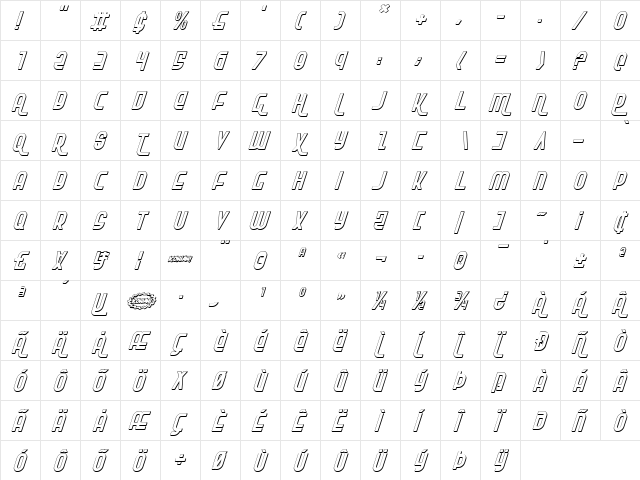
Ro'Ki'Kier Shadow Italic Italic
Design Context for Ro'Ki'Kier Shadow Italic Typeface
Ro'Ki'Kier Shadow Italic brings ornamental detail and strong personality to headlines and identities, where visual impact matters more than quiet functionality. The slanted form adds forward momentum and visual energy.
Font Pairing: Pair with a clean neutral sans-serif for body copy to let Ro'Ki'Kier Shadow Italic's character lead without overwhelming the composition.
Pro Tip: Treat Ro'Ki'Kier Shadow Italic as the centrepiece of your typographic hierarchy. One strong heading set in a decorative face can carry an entire layout.